Alt Text: Best Fonts for Mother’s Day Cards & Gifts | Source: TypeTasty Design
Best Fonts for Mother’s Day Cards & Gifts
Mother’s Day is one of the most heartfelt celebrations of the year. It’s a moment when people around the world express appreciation, love, and gratitude for mothers, grandmothers, and mother figures who shape our lives. Whether you are designing a greeting card, creating a printable gift, or preparing handmade crafts, typography plays a major role in delivering the emotional message.
The right font can instantly make your design feel warm, loving, and personal. Soft handwritten styles feel intimate and authentic, while playful display fonts can make a Mother’s Day design feel cheerful and memorable.
In this guide, we’ll explore some of the best fonts for Mother’s Day cards and gifts, along with tips on how to use them effectively in your designs.
Why Fonts Matter for Mother’s Day Designs
Typography is more than just text. It sets the tone of your design and communicates emotion before anyone even reads the message.
For Mother’s Day projects, designers typically look for fonts that feel:
• Warm and personal
• Friendly and approachable
• Elegant yet readable
• Playful but still heartfelt
Fonts with handwritten or rounded shapes often work best because they mimic the natural feel of a handwritten note.
When paired with soft colors, floral illustrations, or pastel backgrounds, the right font can transform a simple design into something that feels meaningful and memorable.
1. ZRTW Loverynote – Soft Handwriting Font
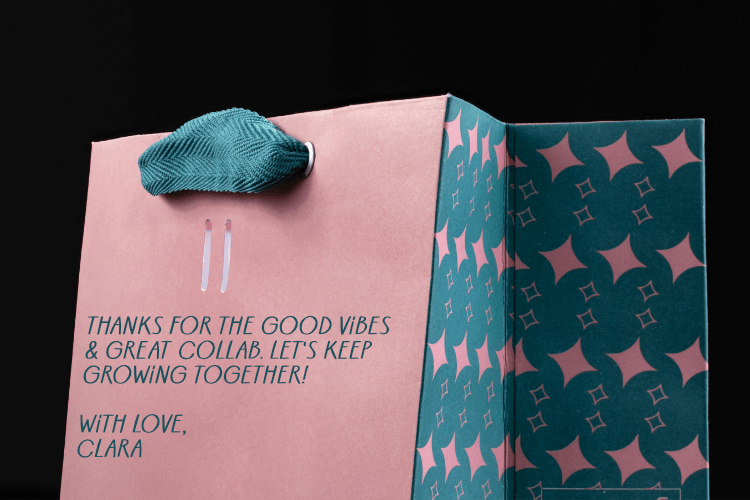
If you want a font that truly feels like a handwritten message, Loverynote is a wonderful option.
This soft handwriting font captures the feeling of writing a heartfelt note to your mom. The slightly imperfect strokes create a natural and authentic look that works beautifully for greeting cards, printable quotes, or sentimental messages.
Best uses:
• Mother’s Day greeting cards
• Handmade gift tags
• Personal letters and notes
• Printable wall art
Because of its organic structure, Loverynote instantly adds a personal touch that feels genuine rather than overly polished.
2. ZRTW Rainsoul – Emotional Handwritten Font
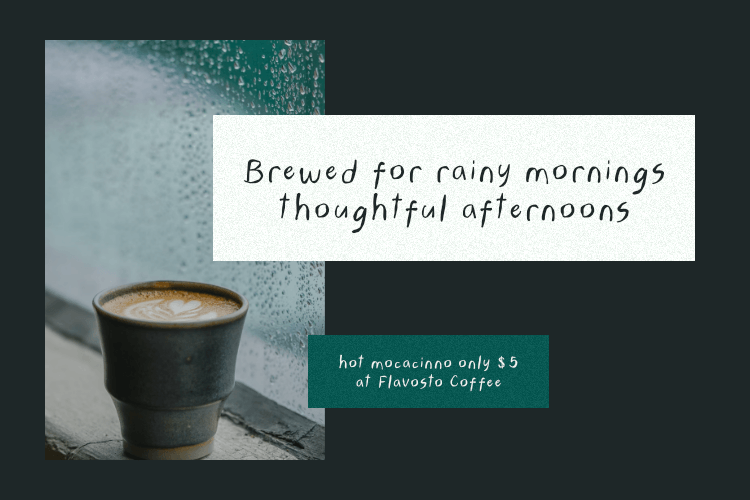
For designs that aim to feel emotional and expressive, Rainsoul is an excellent choice. This handwritten font has soft curves and natural rhythm that make text feel like it was written directly from the heart.
Its slightly uneven shapes create a diary-like aesthetic, which makes it perfect for sentimental quotes and heartfelt messages.
Great for:
• Mother’s Day quote designs
• Printable art gifts
• Poetry-style cards
• Social media posts dedicated to moms
If you want your typography to feel emotional and sincere, Rainsoul is a beautiful option.
3. MGF Pinlock – Fun and Lovely Bold Font
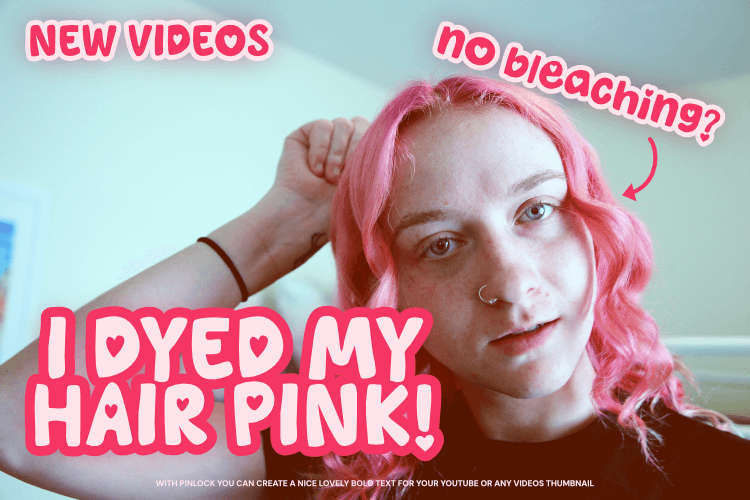
Mother’s Day designs don’t always have to be delicate or script-based. Sometimes a bold, playful font can create a joyful and memorable design.
Pinlock is a rounded, friendly font filled with warmth and charm. Its bubbly shapes make it perfect for designs that aim to feel cheerful and cute.
Perfect for:
• DIY Mother’s Day crafts
• Kids’ cards for mom
• Sticker designs
• Cute packaging for gifts
Because of its rounded structure, Pinlock feels approachable and friendly—exactly the kind of tone many Mother’s Day designs need.
4. ZRTW Keriwily – Quirky Handwritten Font
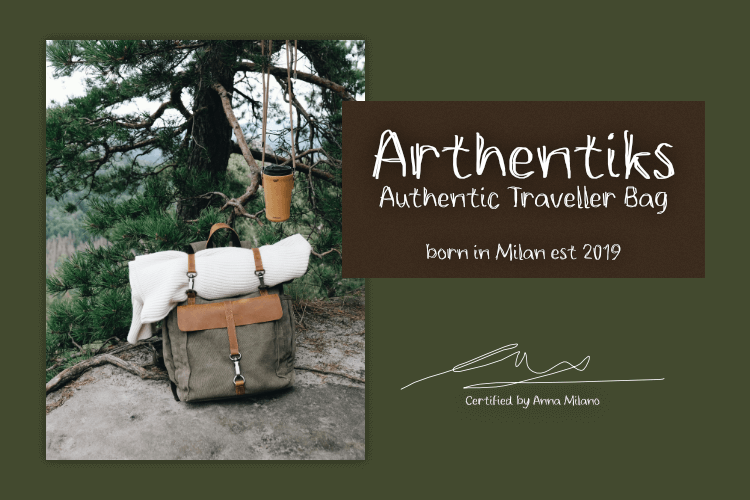
Keriwily is a playful handwritten font that works wonderfully for creative greeting cards. Its quirky personality makes designs feel handmade and full of character.
This font is ideal when you want your design to feel:
• Casual
• Fun
• Friendly
• Handmade
Use Keriwily for craft projects, handmade gifts, or cards created by children.
5. ZRTW Hackynote – Playful Note Font
Hackynote brings a notebook-style aesthetic to your designs. The casual strokes resemble quick handwritten notes, making it perfect for personal messages and creative layouts.
• DIY card designs
• Scrapbook typography
• Mother’s Day journaling pages
• Printable stationery
Because the letterforms feel spontaneous, Hackynote gives your design a relaxed and heartfelt tone.
6. ZRTW Spirinotes – Slim Soft Font
Use this font when you want something that feels:
• Minimalist
• Elegant
• Light and modern
Spirinotes pairs beautifully with floral illustrations, pastel palettes, and soft layouts.
7. ZRTW VeganMatey – Friendly Rounded Font
This font is especially useful for:
• Gift packaging labels
• Printable stickers
• Kids-themed cards
• Social media graphics
Rounded fonts like VeganMatey naturally create a sense of warmth and positivity.
How to Choose the Right Font for Mother’s Day
When selecting typography for Mother’s Day designs, keep these simple guidelines in mind.
1. Match the Emotion
If your design is sentimental or emotional, go for handwritten fonts.
If your design is cheerful and playful, choose rounded or display fonts.
2. Keep It Readable
Greeting cards and gifts often contain short messages, but readability is still important.
Avoid overly decorative fonts for long text.
3. Pair Fonts Carefully
A great trick is combining two font styles:
• Handwritten font for the main message
• Clean sans serif for small text
This keeps the design balanced while maintaining a personal feel.
4. Use Fonts with Space
Mother’s Day designs often include illustrations like:
• Flowers
• Hearts
• Gift icons
• Soft decorative elements
Choose fonts that leave enough breathing room so the design doesn’t feel crowded.
Creative Mother’s Day Design Ideas
Here are some popular design ideas where these fonts can shine.
Printable Mother’s Day cards
Create digital cards people can download and print at home.
DIY gift tags
Small handwritten tags add a handmade feel to gifts.
Instagram Mother’s Day posts
Share heartfelt messages or quotes dedicated to moms.
Wall art gifts
Typography-based posters with emotional quotes are a popular handmade gift idea.
Craft projects
Scrapbooks, stickers, and handmade decorations all benefit from warm typography.
Final Thoughts
Designing for Mother’s Day is all about emotion. The goal isn’t just to create something visually beautiful it’s to create something meaningful.
Fonts play a crucial role in making that emotional connection. Handwritten styles create intimacy, playful fonts add warmth, and rounded designs feel friendly and welcoming.
If you’re creating greeting cards, printable gifts, or social media graphics, choosing the right typography can elevate your design and make your message even more special.
With fonts like Loverynote, Rainsoul, Pinlock, Keriwily, Hackynote, Spirinotes, and VeganMatey, you have a versatile toolkit for creating heartfelt Mother’s Day designs that truly stand out.
Because in the end, the most memorable designs are the ones that feel personal just like the message we want to send to our moms.